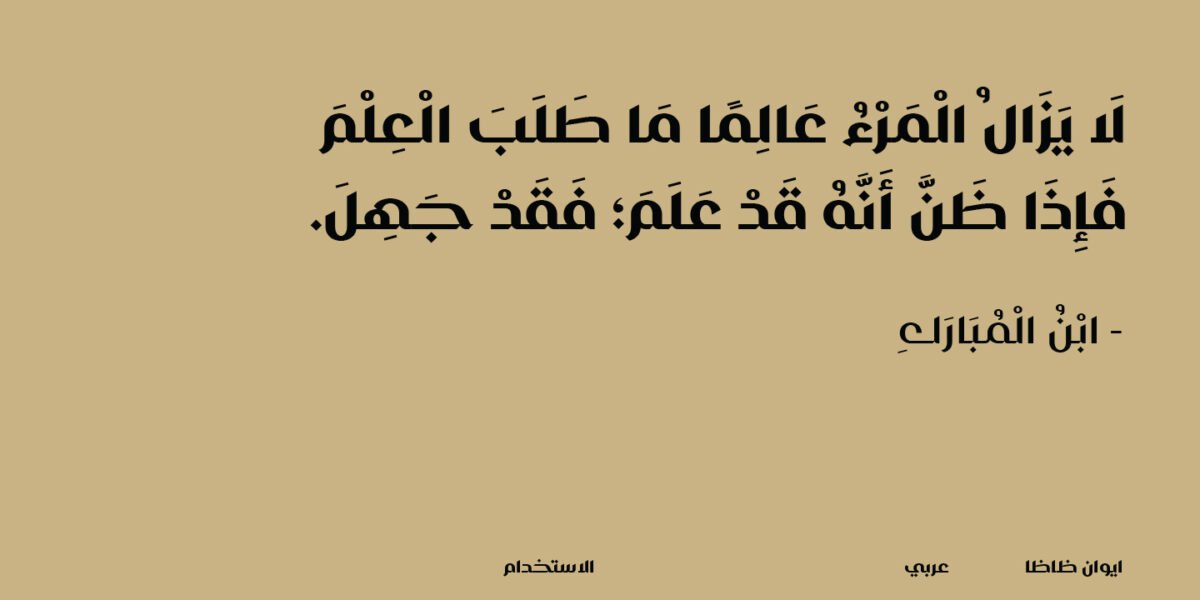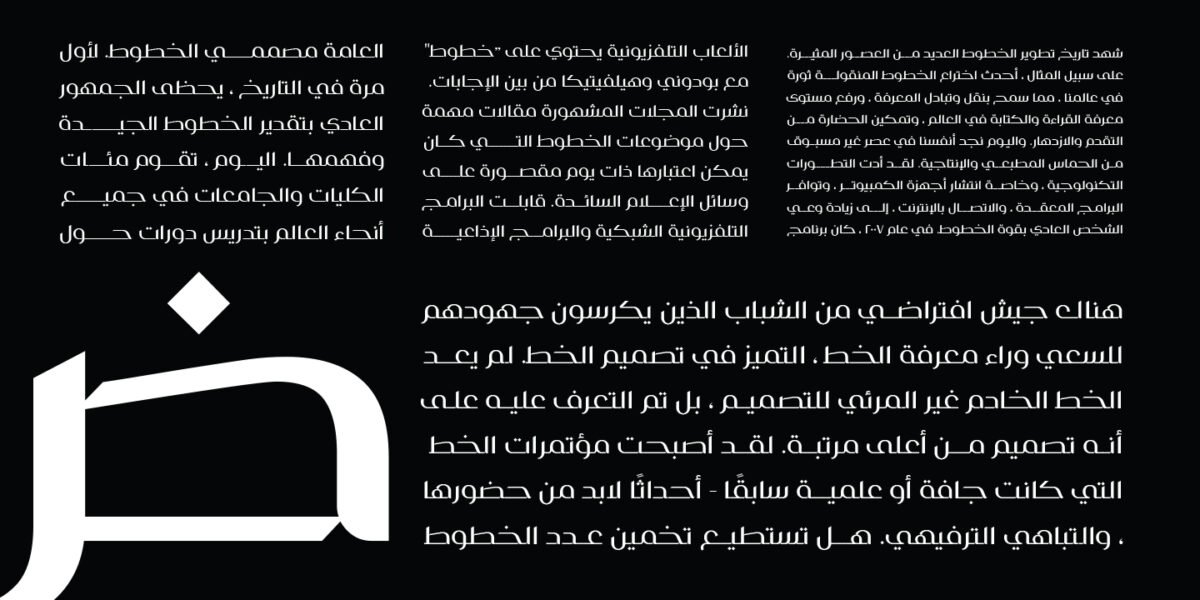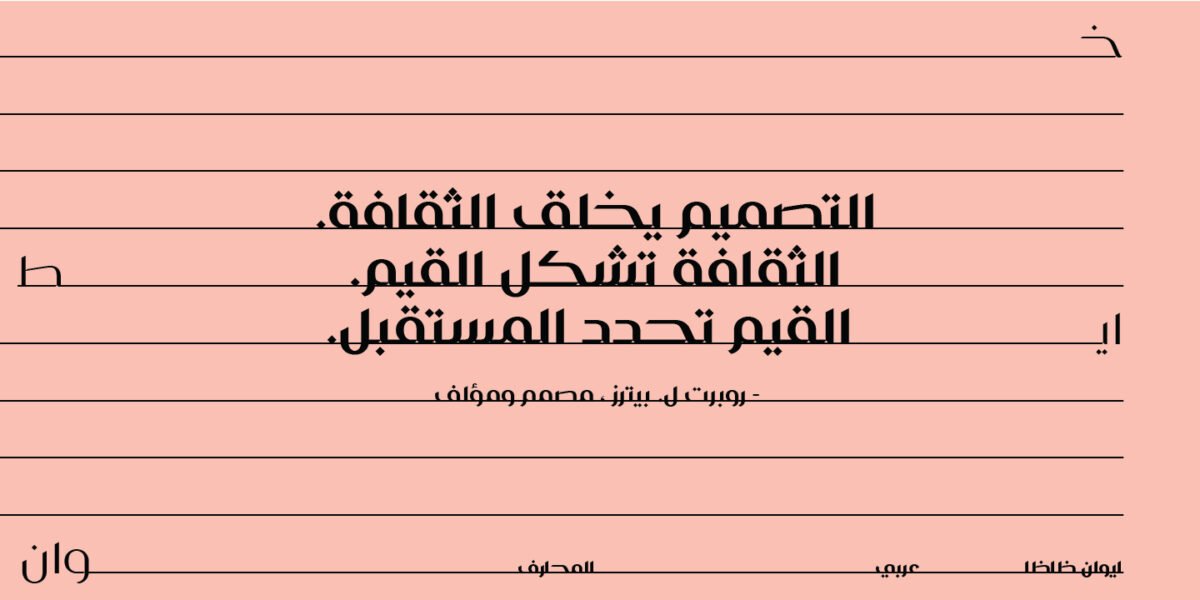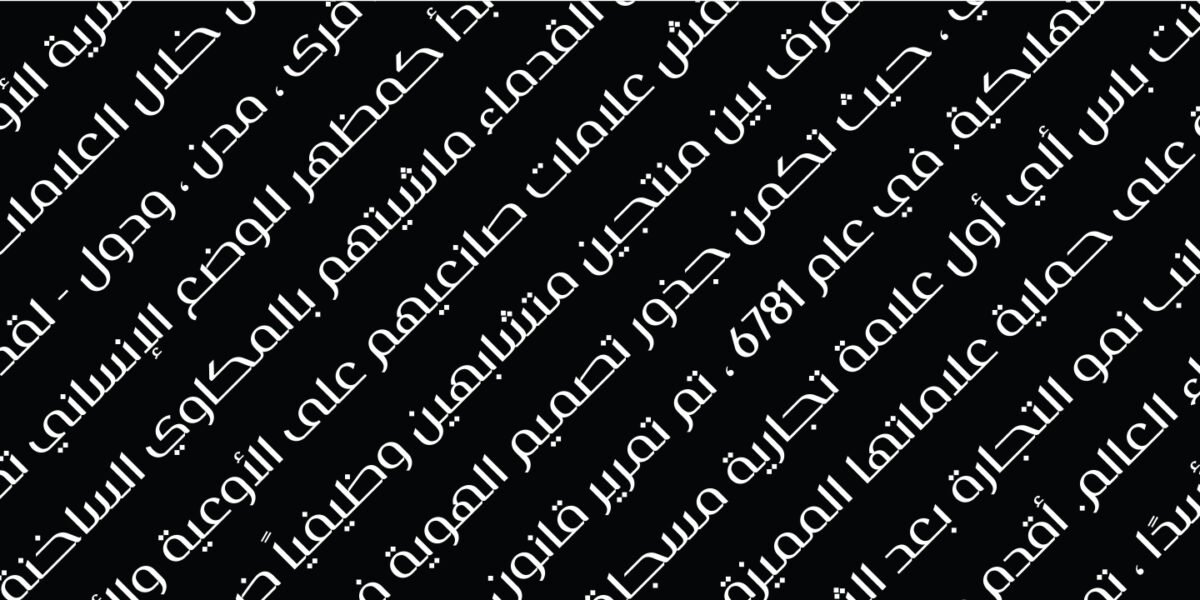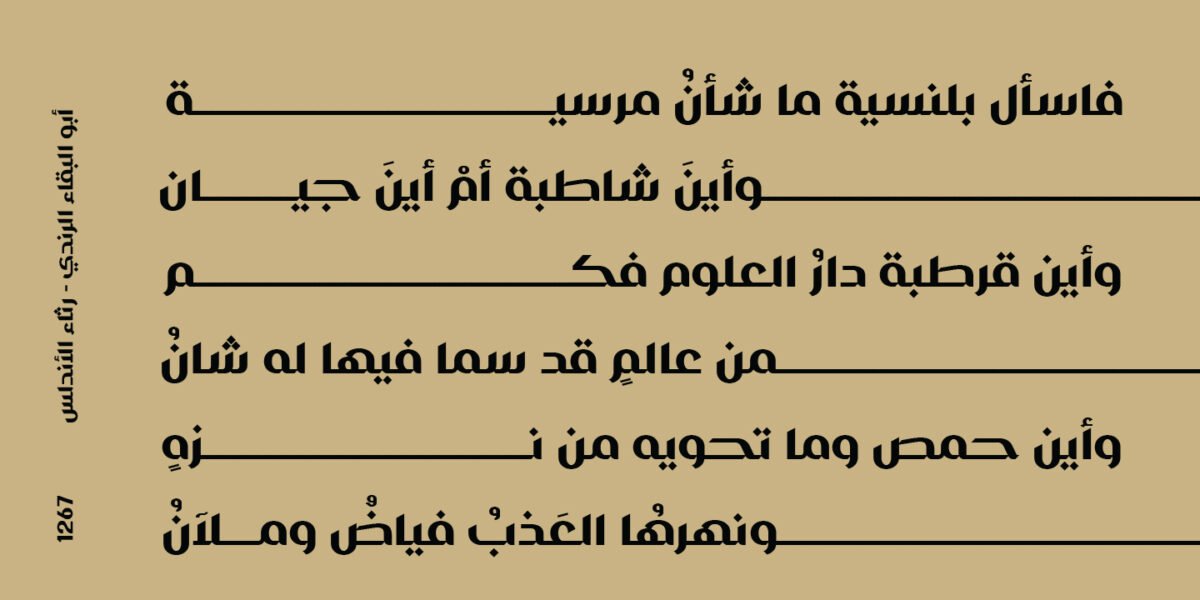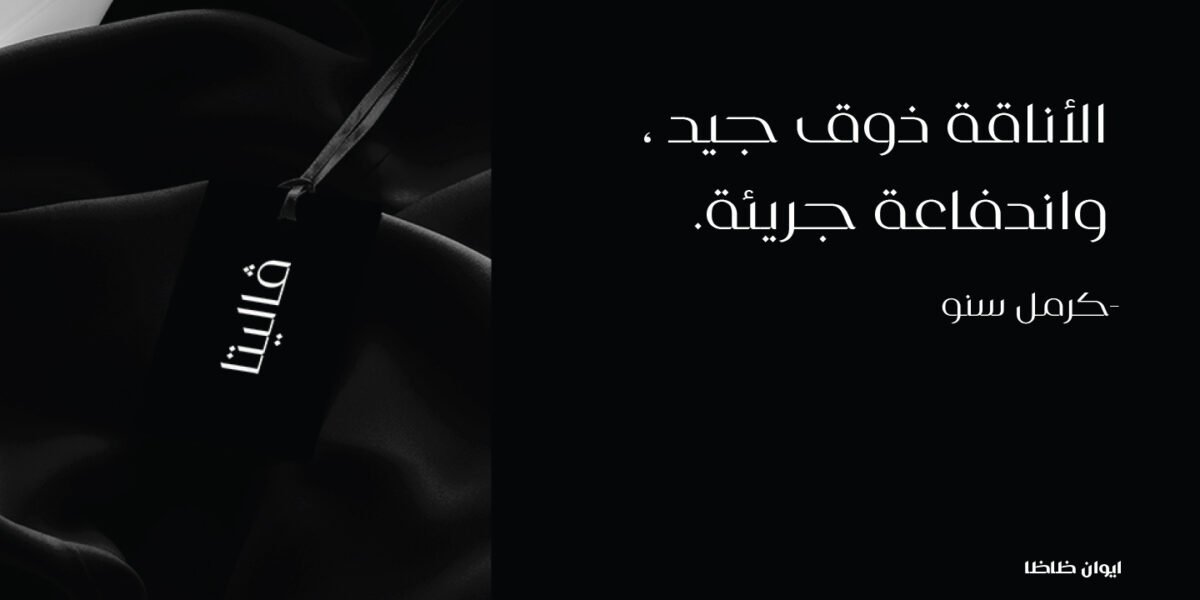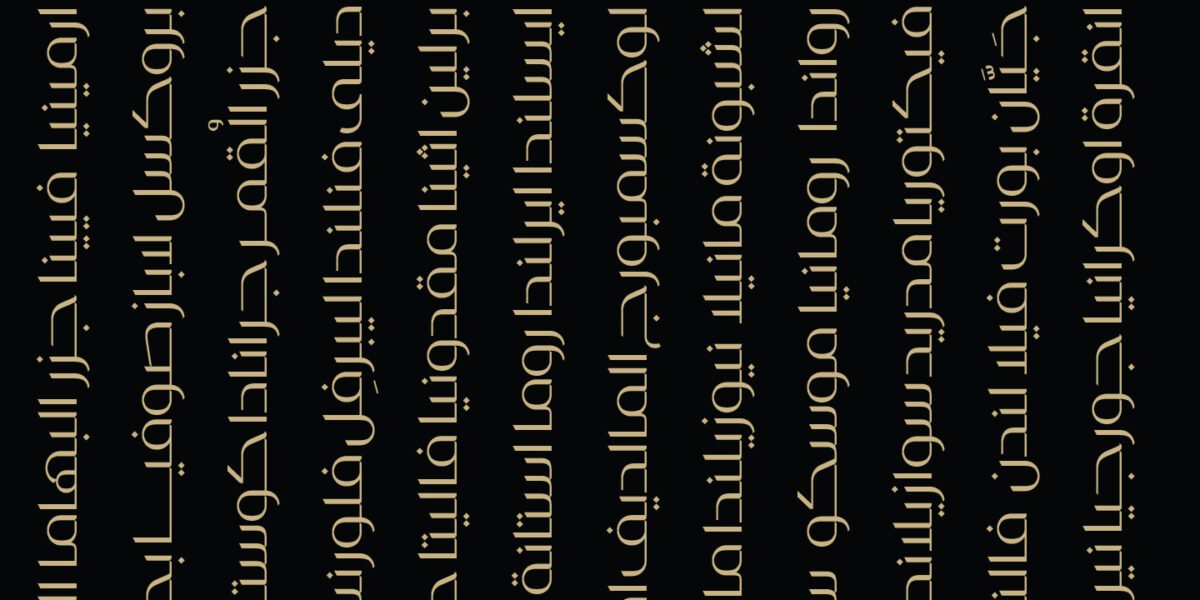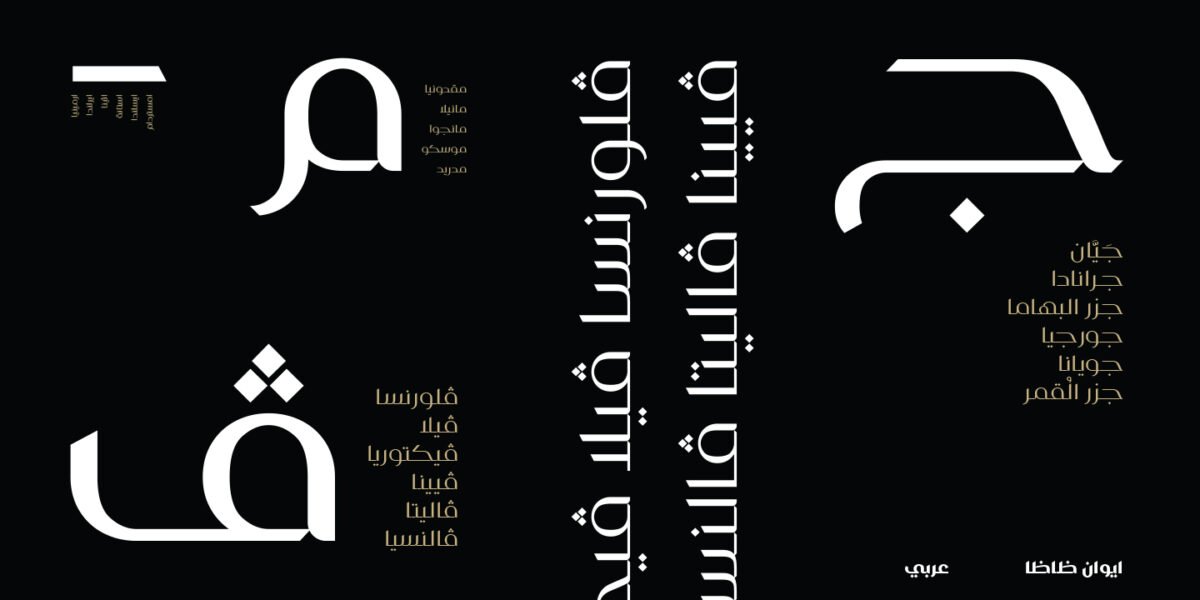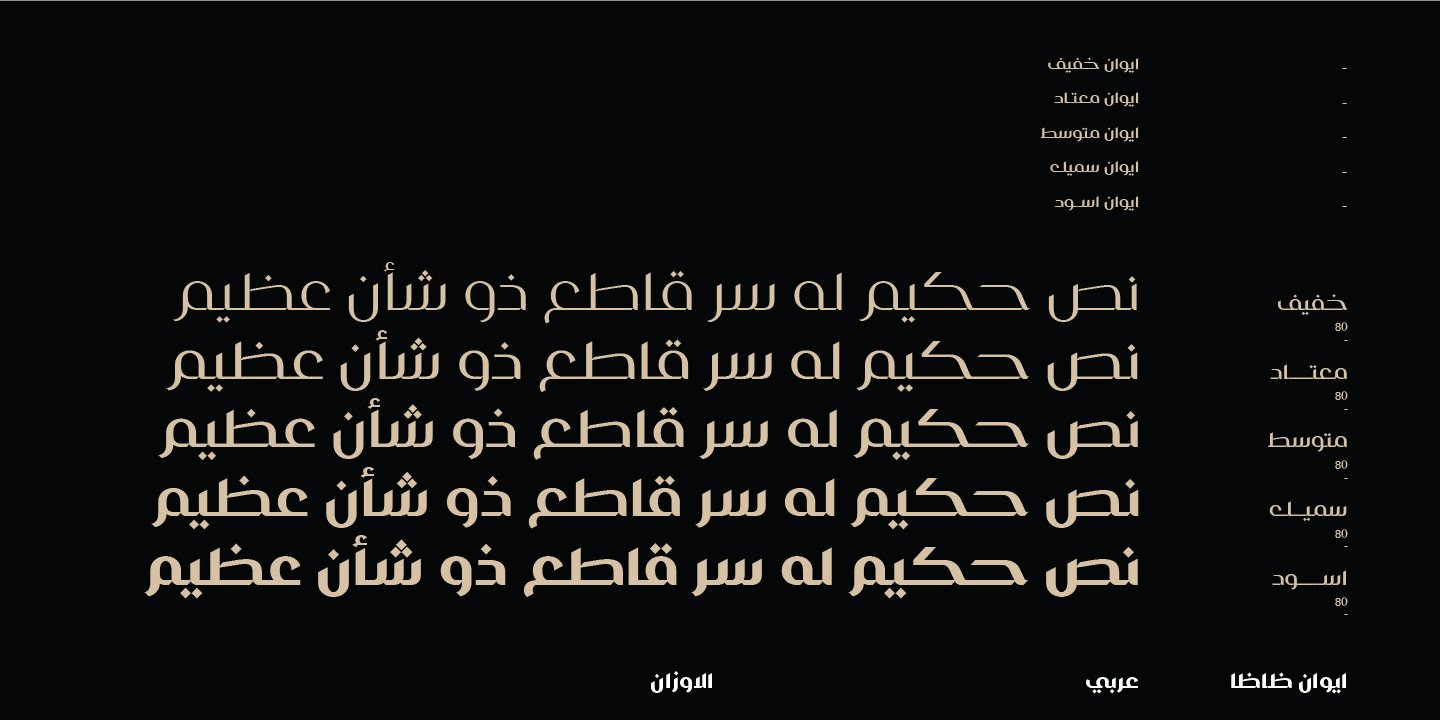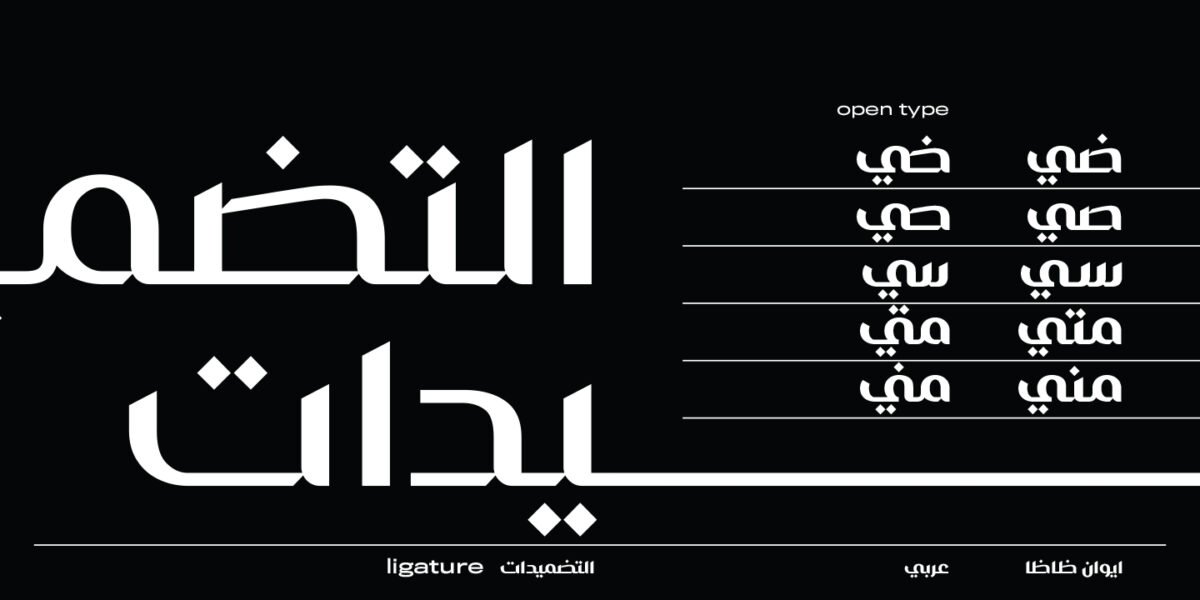
iwan zaza typeface – Arabic – خط ايوان ظاظا
Iwan is a high-contrast modern Arabic typeface . the design is inspired by the Kufi calligraphic style and influenced by the Naskh style. Iwan balances classic and contemporary tastes with wide open counters and short ascenders and descenders that minimize the height. And has a high – contrast between the vertical and the horizontal to line up in harmony with Latin. And OpenType alternates and ligatures set. This makes it suitable for branding, editorial, packaging, and advertising.
Iwan Features five weights from Light to Black, supports OpenType features for Arabic, and has a wide glyph set.
اللغات: العربية
الاوزان : خمسة اوزان